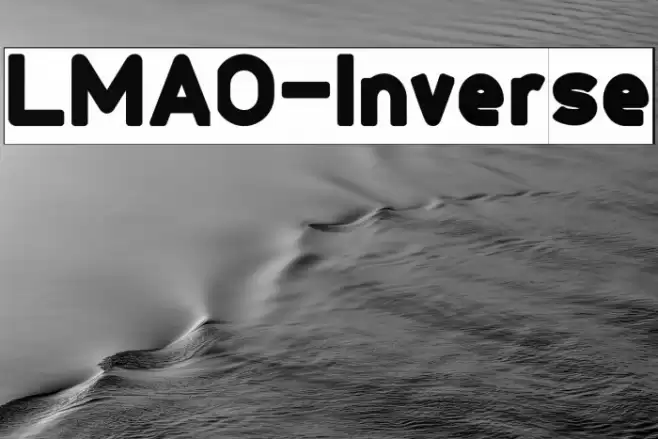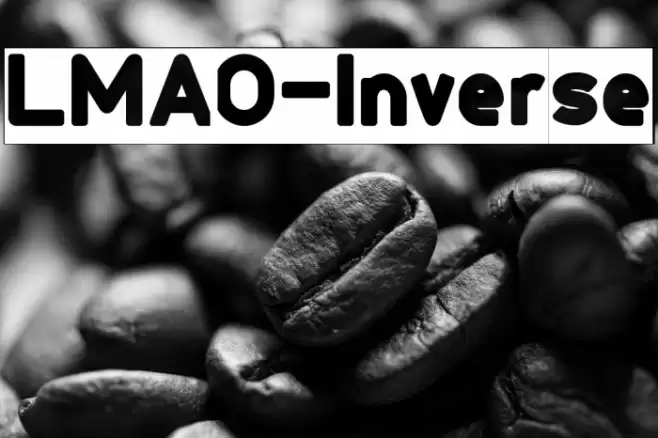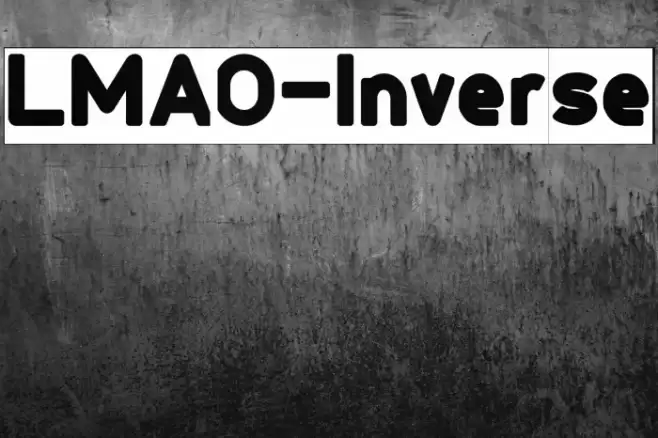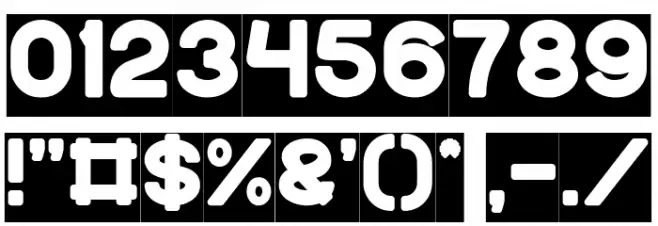
LMAO-Inverse Font
LMAO-Inverse Description
This font features bold, rounded characters with a playful and friendly appearance. The letters are evenly spaced and have a consistent thickness, giving them a strong presence. The uppercase and lowercase letters maintain a uniform style, with smooth curves and a slightly condensed form. Numbers and special characters are designed to match the overall aesthetic, ensuring a cohesive look across all elements. The font's design is modern and approachable, making it suitable for a variety of creative projects.
A bold, rounded font with a playful and modern style from Uncategorized fonts.
- Proposed Projects: Ideal for children's books, playful branding, posters, and social media graphics.